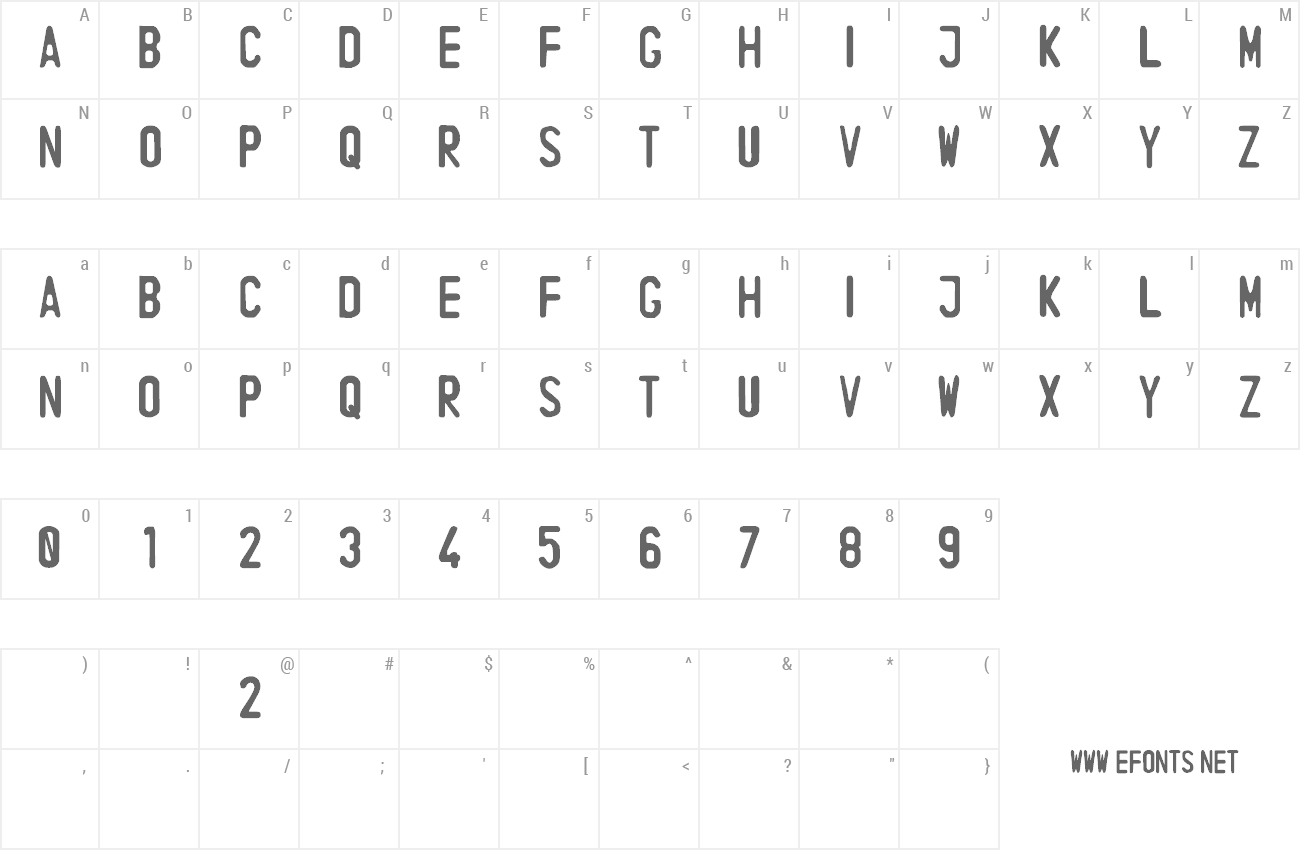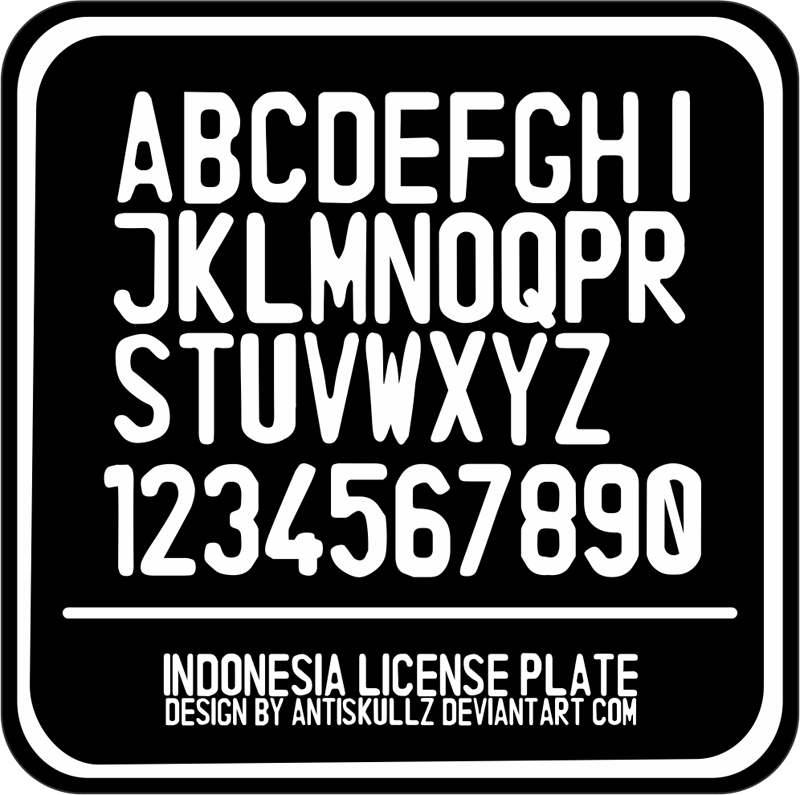
| Font name: | Indonesia License Plate |
| Author: | Budiman Ramadhan |
| Note by Budiman Ramadhan | |
I trace it from Indonesia License Plate Hope you like it ^^ sorry it's only available in Alphabet and Number only |